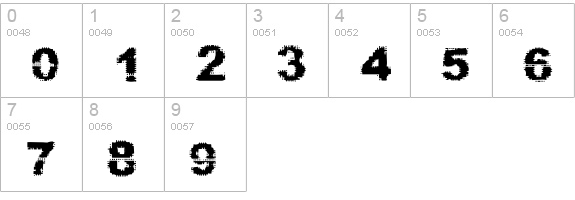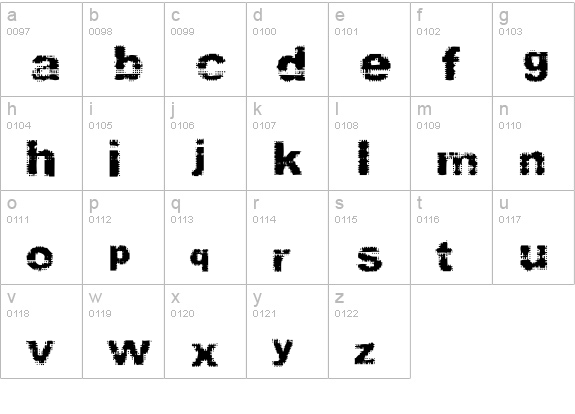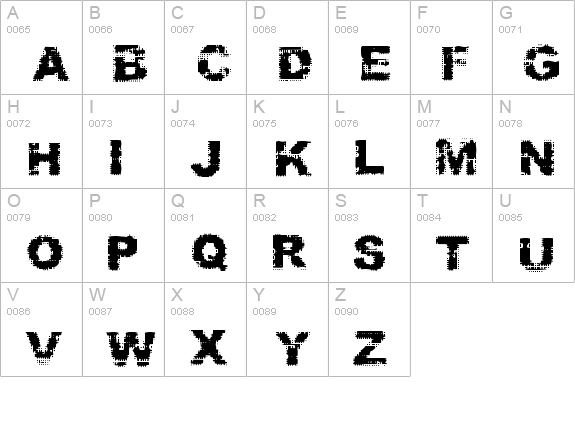
Stamp Font Details
Introducing Stamp font, a bold and versatile typeface that adds a touch of vintage charm to any design project. With its rugged edges and worn-out appearance, Stamp font captures the essence of an old rubber stamp, bringing a nostalgic feel to your creations. Whether you're working on a logo, branding materials, posters, or social media graphics, Stamp font is the perfect choice to make your designs stand out. Its strong and distinctive letterforms convey a sense of authenticity and craftsmanship, making it ideal for projects that require a handmade or artisanal look. Stamp font offers a wide range of characters, including uppercase letters, lowercase letters, numbers, punctuation marks, and special symbols. This extensive character set ensures compatibility with various design applications and allows you to unleash your creativity without limitations. What's even better is that Stamp font is available for free! Yes, you read that right. You can freely download this incredible font at FontsMarket.com, a leading platform for high-quality fonts. Get your hands on Stamp font today and elevate your designs with its unique and eye-catching style. Don't miss out on the opportunity to add a touch of vintage charm to your projects. Download Stamp font now and let its nostalgic appeal captivate your audience.